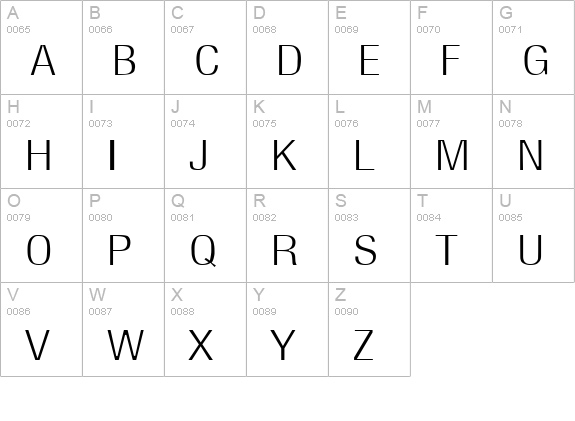
Milford Light Font Details
Milford Light is a refined, elegant variant in the Milford typeface family \xE2\x80\x94 well suited to elegant body text, refined sub-headings, and luxury branding.
Milford Light font is a stunning typeface that effortlessly combines elegance and simplicity. Its clean lines and delicate curves create a sense of sophisticated charm, making it perfect for a wide range of design projects. Whether you're creating a logo, designing a website, or crafting beautiful invitations, Milford Light font will add a touch of refinement to your work. What sets Milford Light font apart is not just its exceptional design, but also its accessibility. This font is available for free download at FontsMarket.com, making it easily accessible to designers, students, and anyone in need of a high-quality typeface without breaking the bank. With Milford Light font, you can enhance your creative projects with a professional touch, all while staying within budget. Featuring a balanced blend of thin strokes and subtle details, Milford Light font is versatile enough to work well in both headlines and body text. Its legibility ensures that your message will be communicated clearly, while its unique aesthetic adds a touch of sophistication to any composition. The versatility of Milford Light font extends beyond its design and readability. It is compatible with a wide range of design software, making it easy to incorporate into your existing workflow. Whether you're using Adobe Creative Suite, Microsoft Office, or any other design program, Milford Light font will seamlessly integrate into your projects, saving you time and effort. With its timeless elegance and free availability, Milford Light font is a must-have for any designer. Its versatility, accessibility, and exceptional design make it a valuable addition to any font library. So why wait? Download Milford Light font today from FontsMarket.com and elevate your design projects to new heights of sophistication.